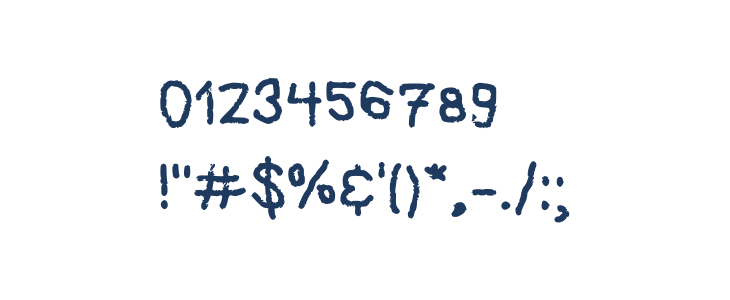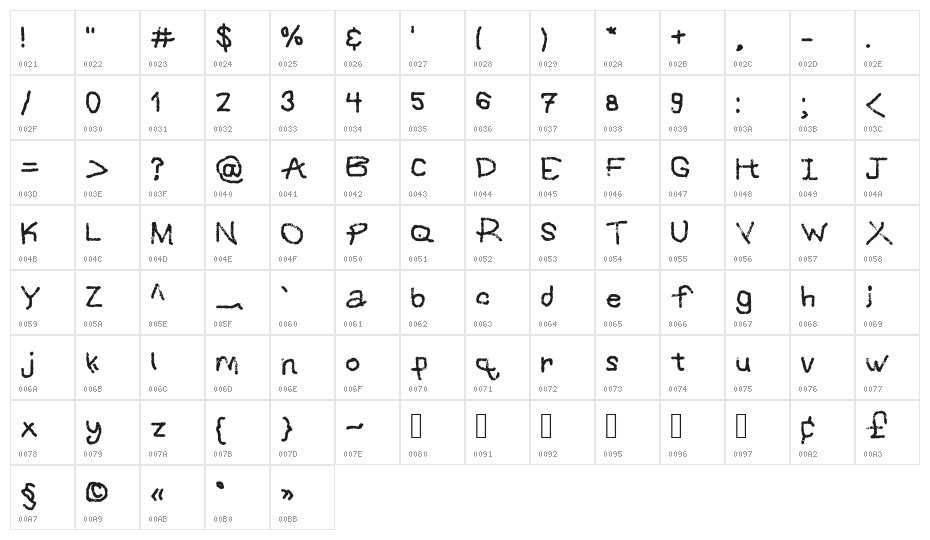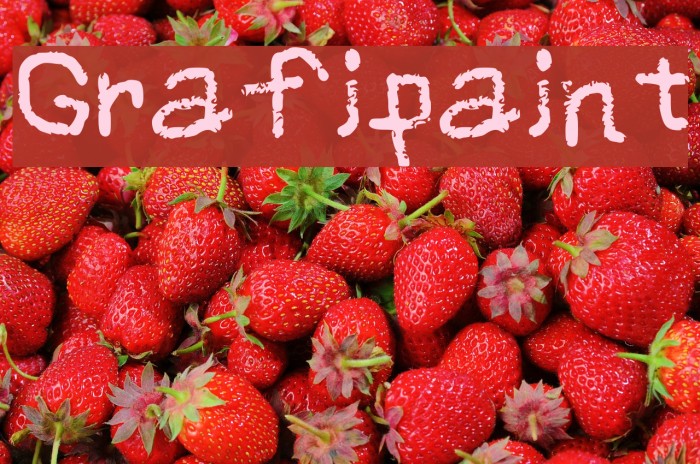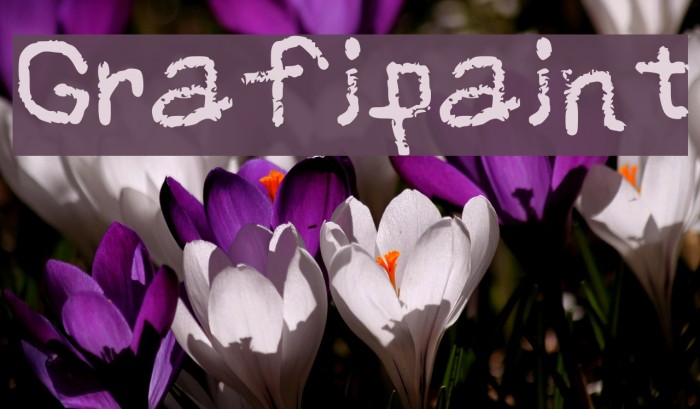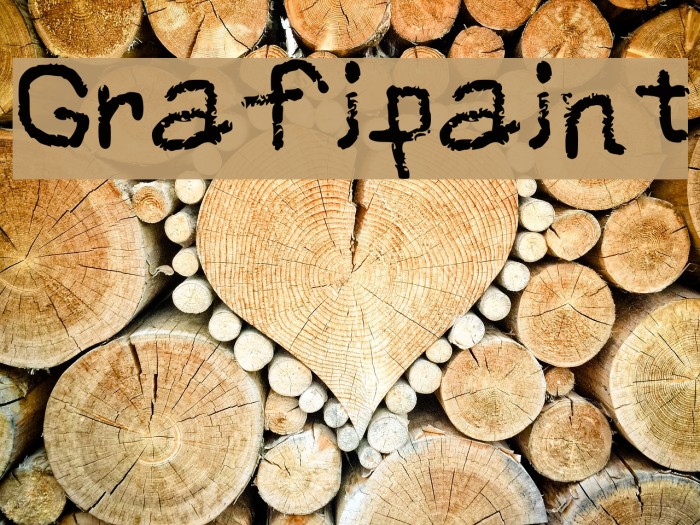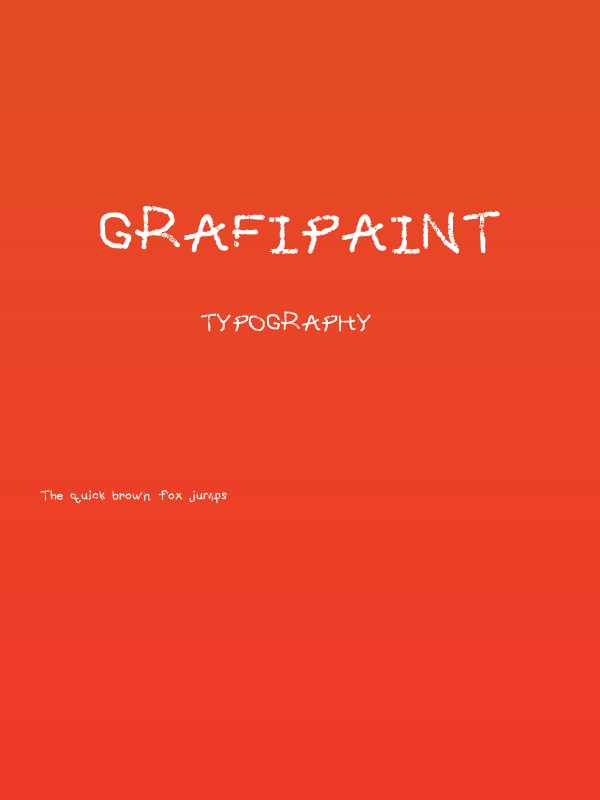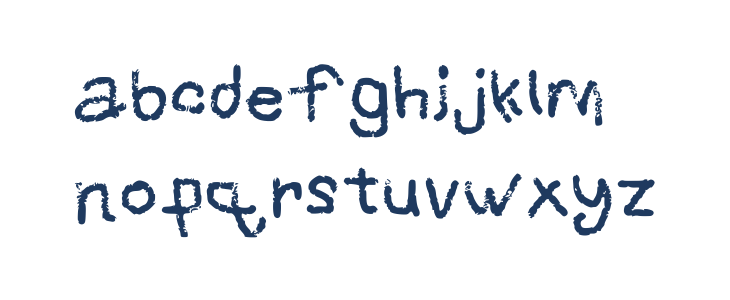
Grafipaint Font
Grafipaint Description
This font features a bold, textured appearance reminiscent of brush strokes or graffiti. Each character is uniquely distressed, giving it a rugged and artistic feel. The uppercase and lowercase letters maintain a consistent style, with rounded edges and varying thickness that adds to its hand-painted look. Numbers and special characters follow the same aesthetic, ensuring a cohesive design throughout. The overall impression is dynamic and expressive, making it suitable for creative and eye-catching designs.
| Proposed Projects | Ideal for street art-inspired designs, posters, album covers, and urban-themed branding. |